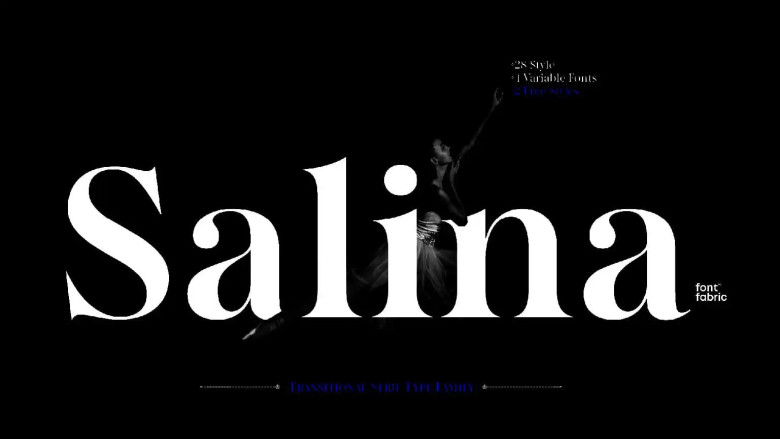
Salina Font
Salina font is an elegant and powerful serif font family with alternative type designs created by Ivelina Martinova with help from Plamen Motev and Vika Usmanova as co-creators.
Salina stands out for its striking contrast between thick and fine strokes, its smooth ovals with round ball ends, and bracketed serifs; all of these qualities combine to produce an impactful visual that makes Salina the ideal font for designers attempting to craft visually striking compositions. Salina represents sophistication, elegance and exclusivity all at once!
Salina Serif Font Family